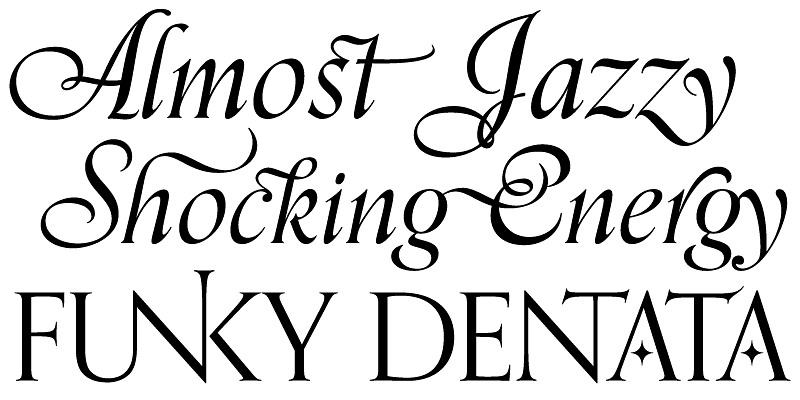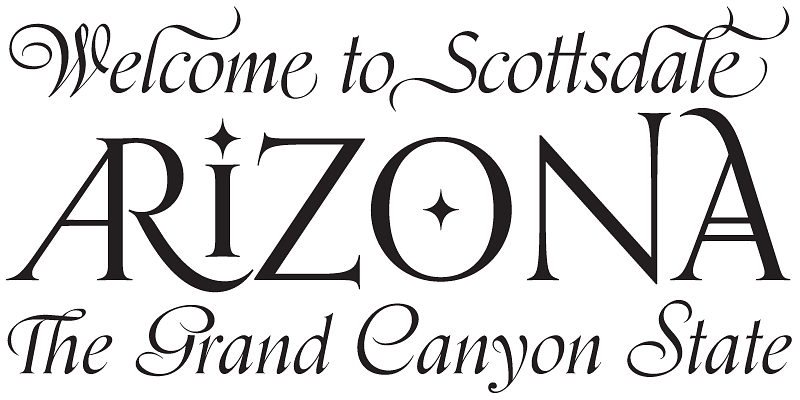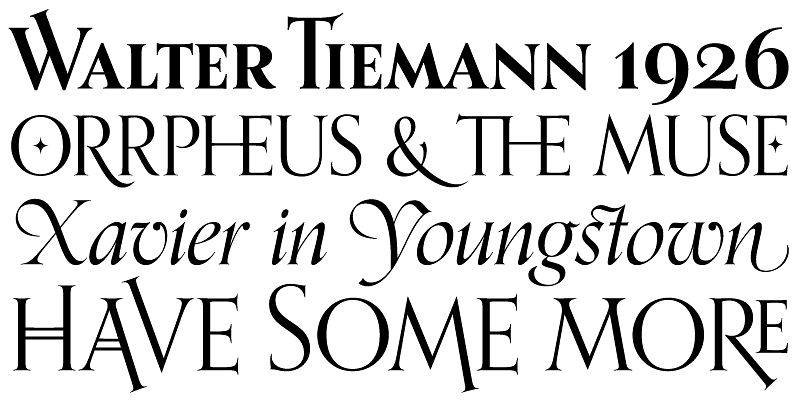
Orpheus Font
Orpheus Pro is rooted in two late 1920s designs by Walter Tiemann, who had an impressive talent for combining classic Roman proportions and Art Deco sensibilities. It has become a standard font in packaging and entertainment design.